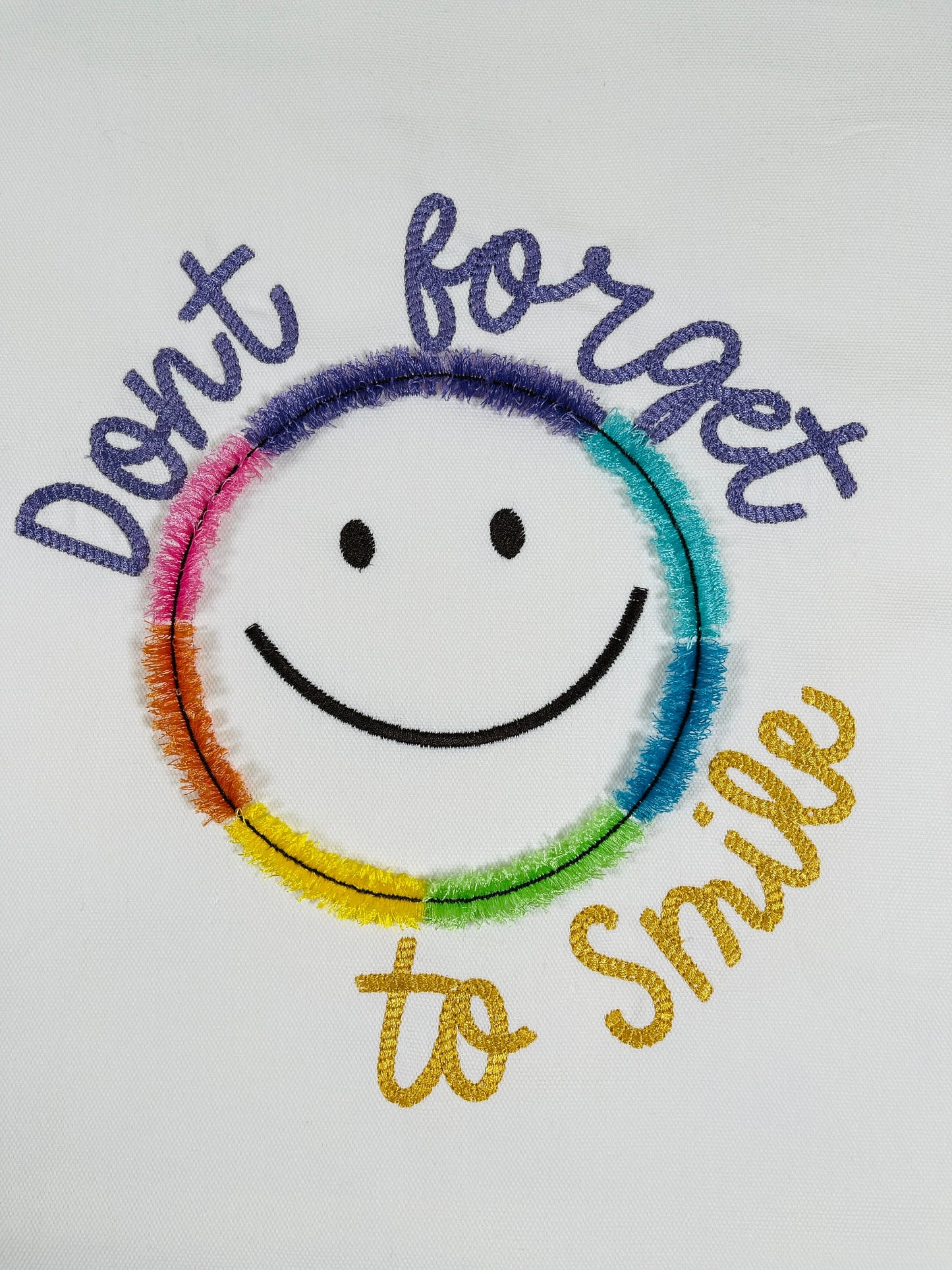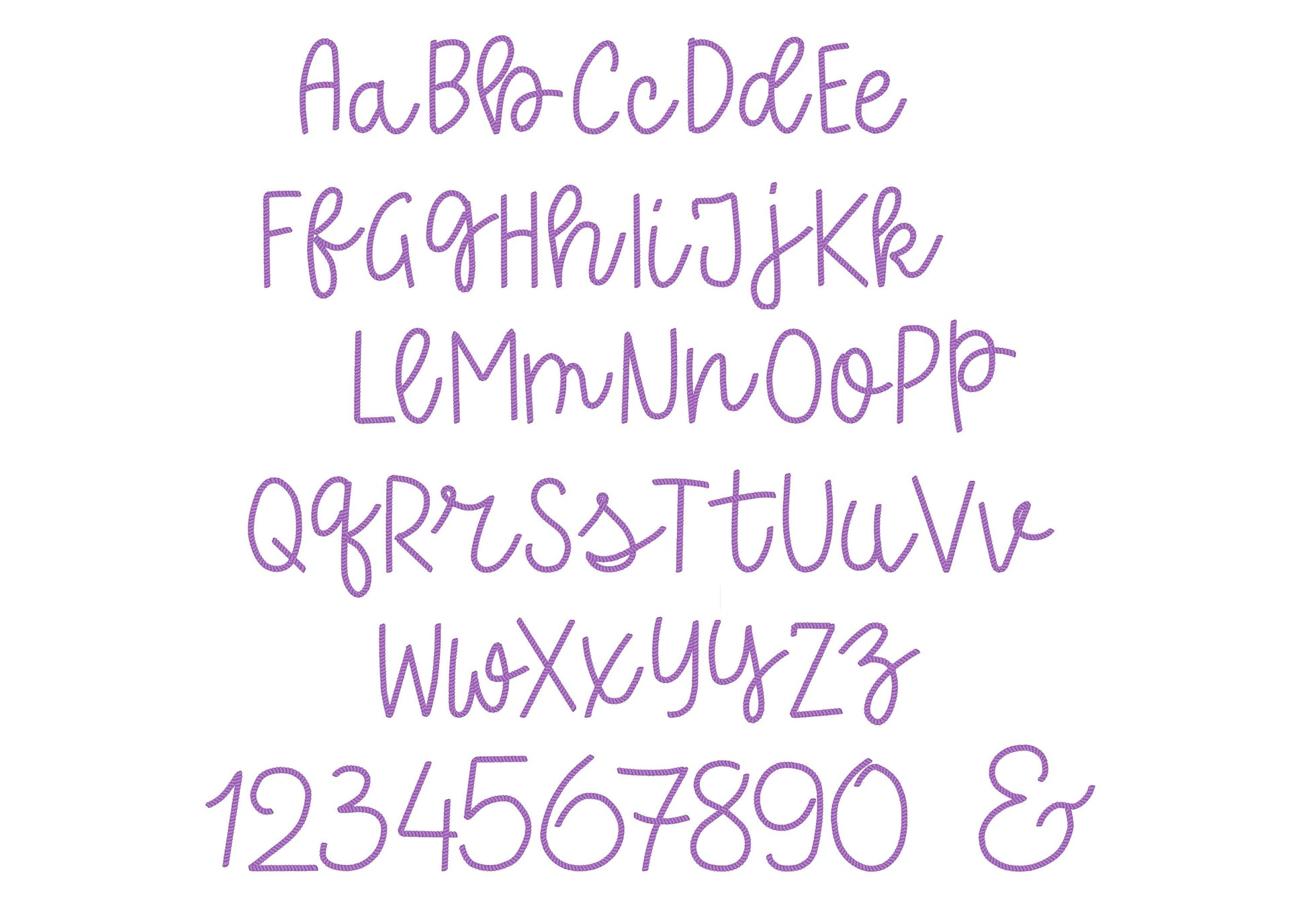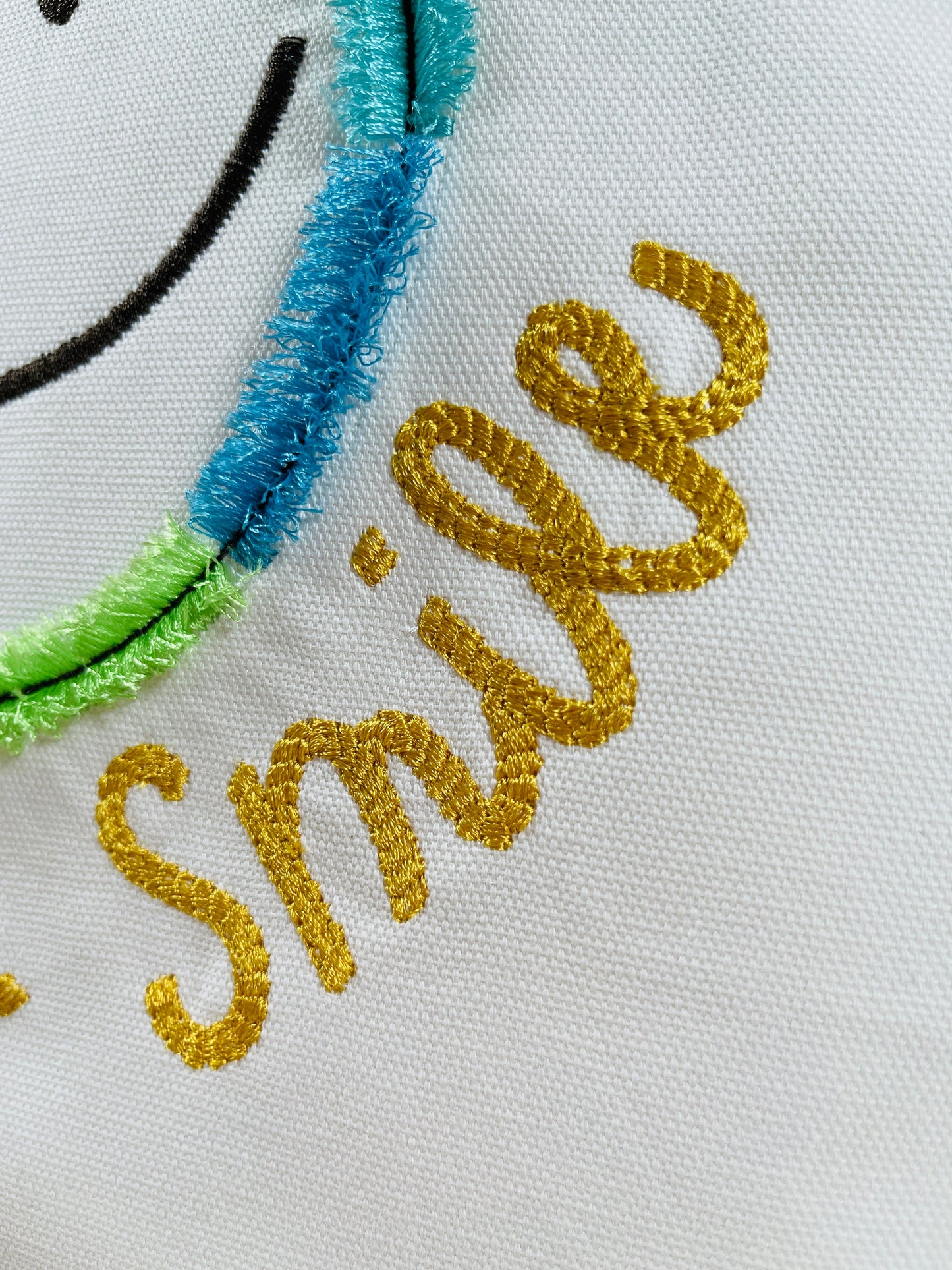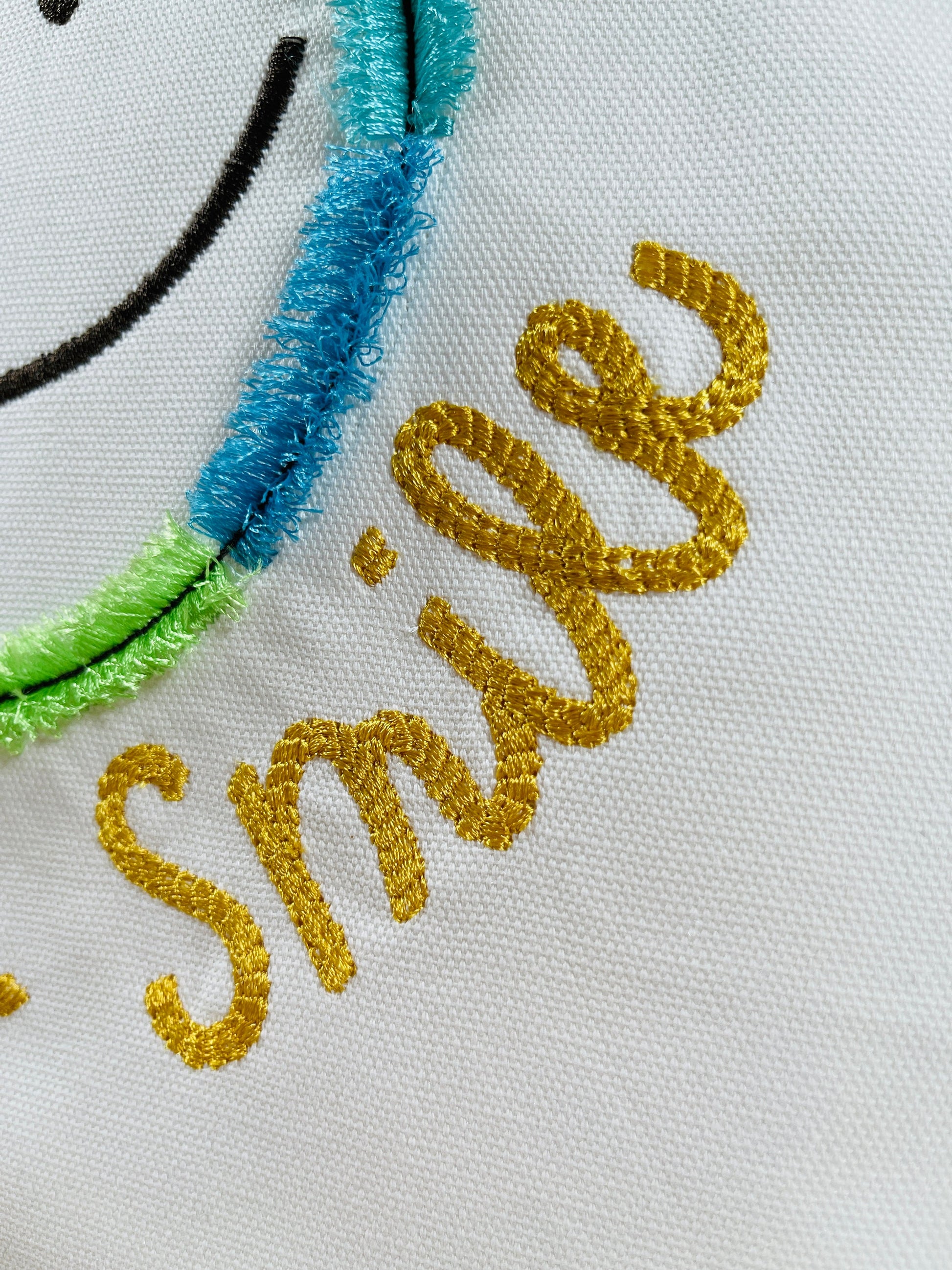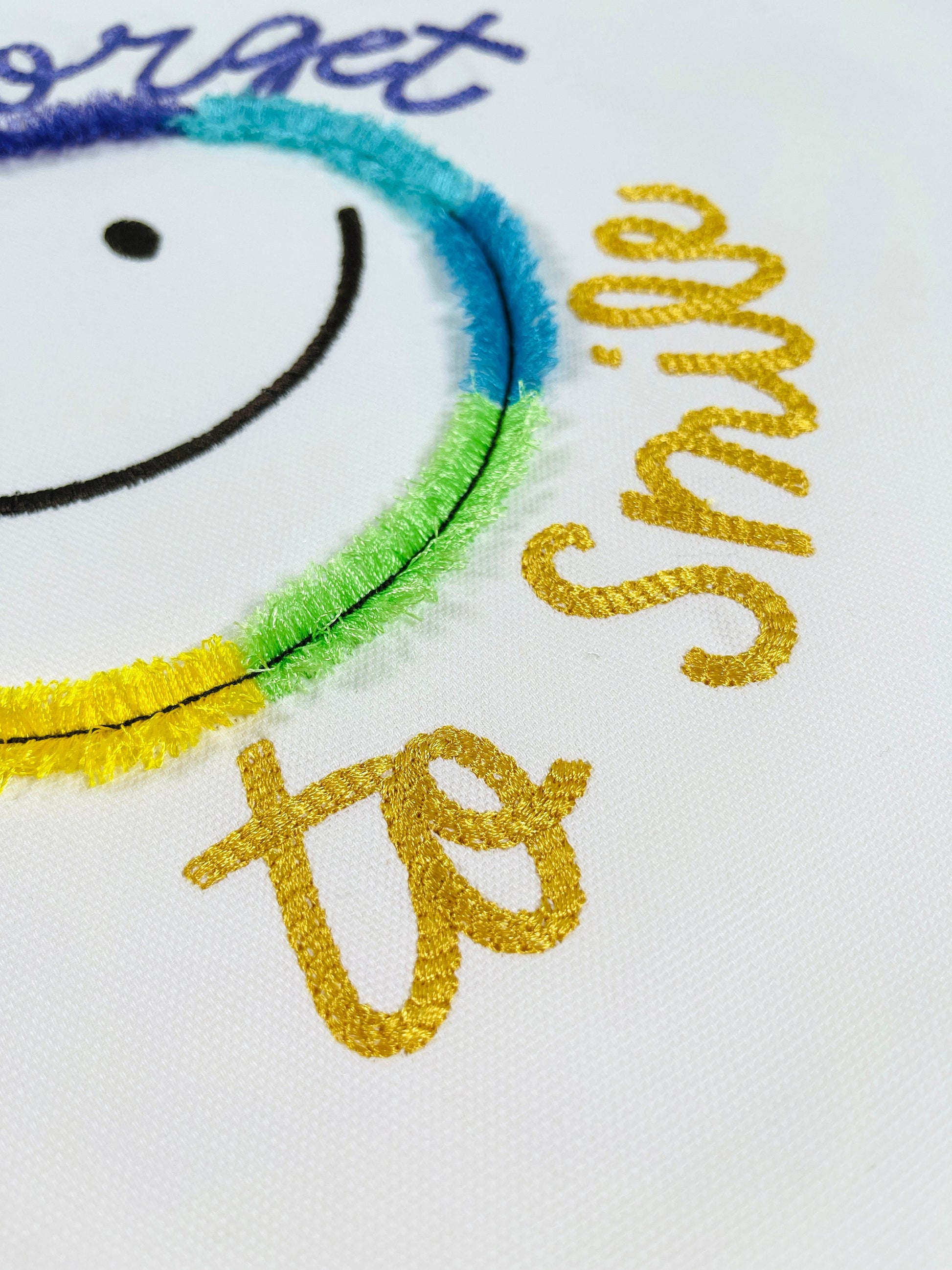
Or click to open the linkA textured rope font in a playful cursive script, for kids' names and words on shirts, bags and nautical projects.
The letters look like twisted rope. Uppercase and lowercase letters, numbers and an ampersand in seven sizes: 1.2, 1.5, 2, 2.3, 2.7, 3.2 and 4 inches.